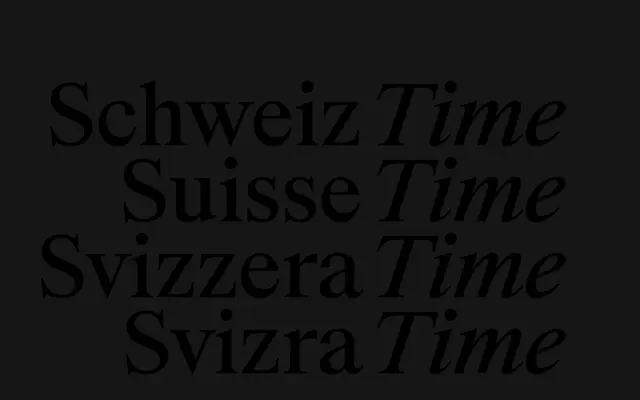
SwissTime
A Times-derived transitional serif by Ian Party, offered in 12 styles with variable font support across weight and italic axes.
Drawing directly from the Times tradition, SwissTime pairs the familiar structure of moderate stroke contrast and bracketed serifs with a broad Latin Extended glyph set of 397 characters per style. The family ships as 12 static styles alongside two variable fonts covering weight and italic, making it adaptable for both print and screen editorial contexts. Language coverage spans a wide range of Latin-based scripts from Afrikaans to Zulu.
SwissTime draws directly from the Times lineage, a quintessential transitional serif characterised by moderate contrast, bracketed serifs and upright roman posture. The reference to Times' precision and elegance places it firmly within that category.